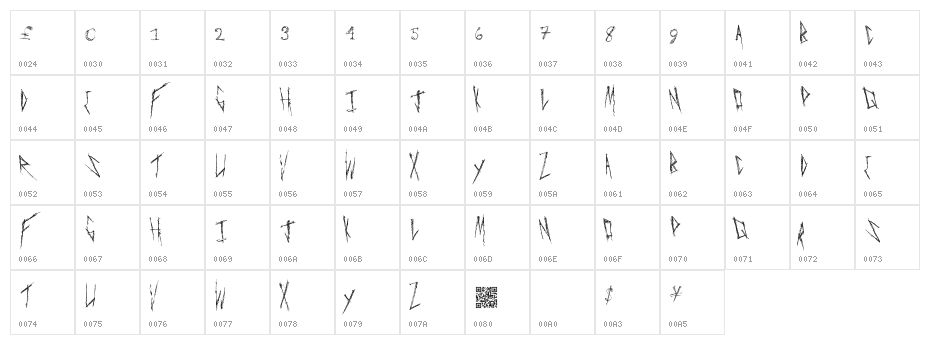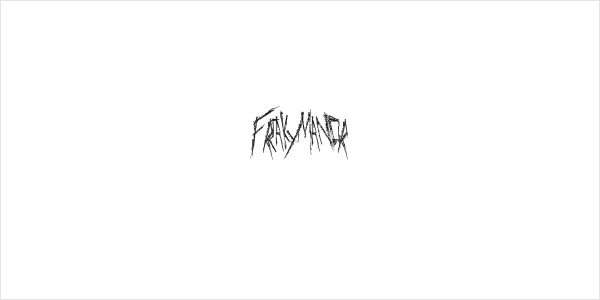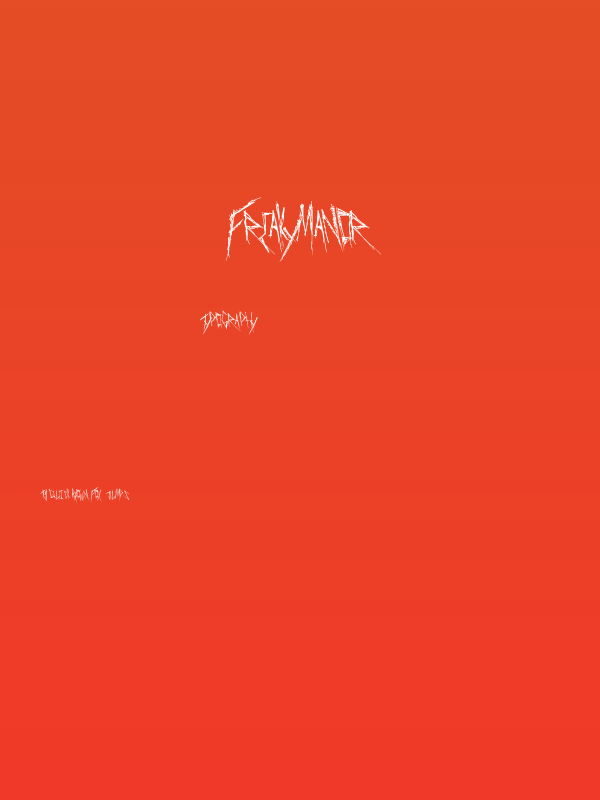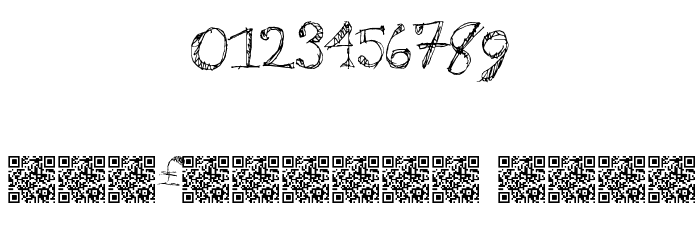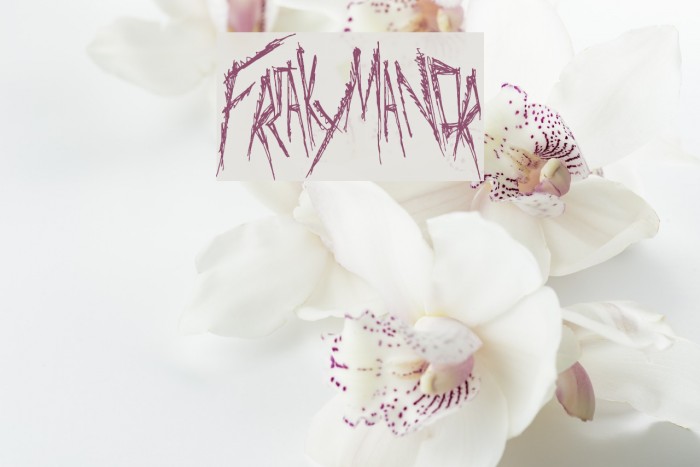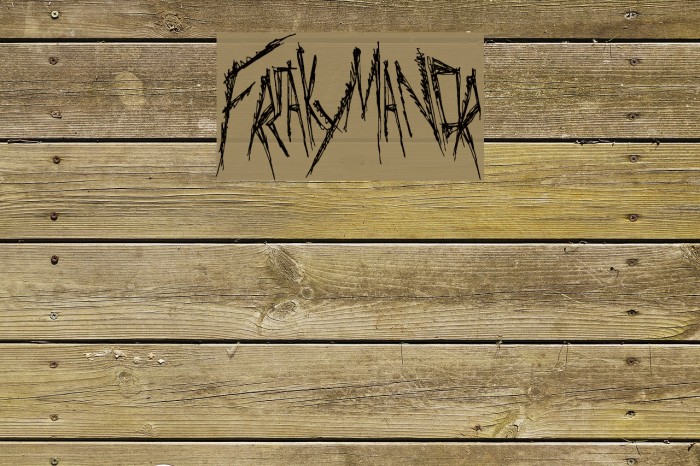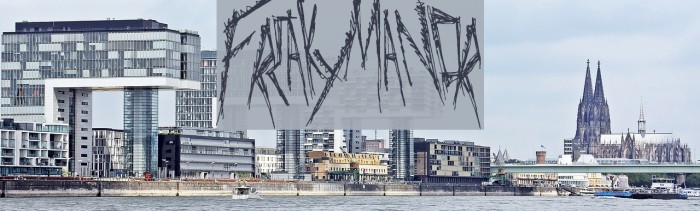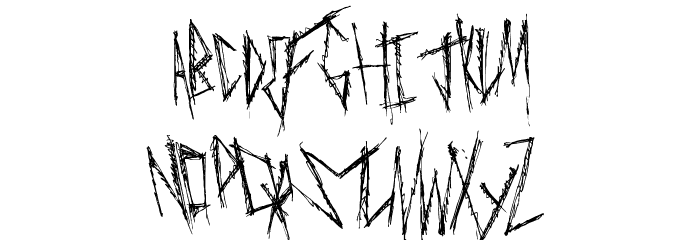
FreakyManor Font
FreakyManor Description
This font exudes a chaotic and edgy vibe, with its jagged and irregular strokes that resemble scratchy, hand-drawn lines. The characters are highly stylized, giving off a raw and rebellious feel. Each letter appears to be crafted with a sense of urgency and spontaneity, making it ideal for projects that require a touch of grunge or punk aesthetics. The numbers and special characters maintain the same distressed look, ensuring consistency across all text elements.
| Overall Style | Grunge, Punk |
| Proposed Projects | Perfect for album covers, horror movie posters, edgy apparel designs, and rebellious branding. |